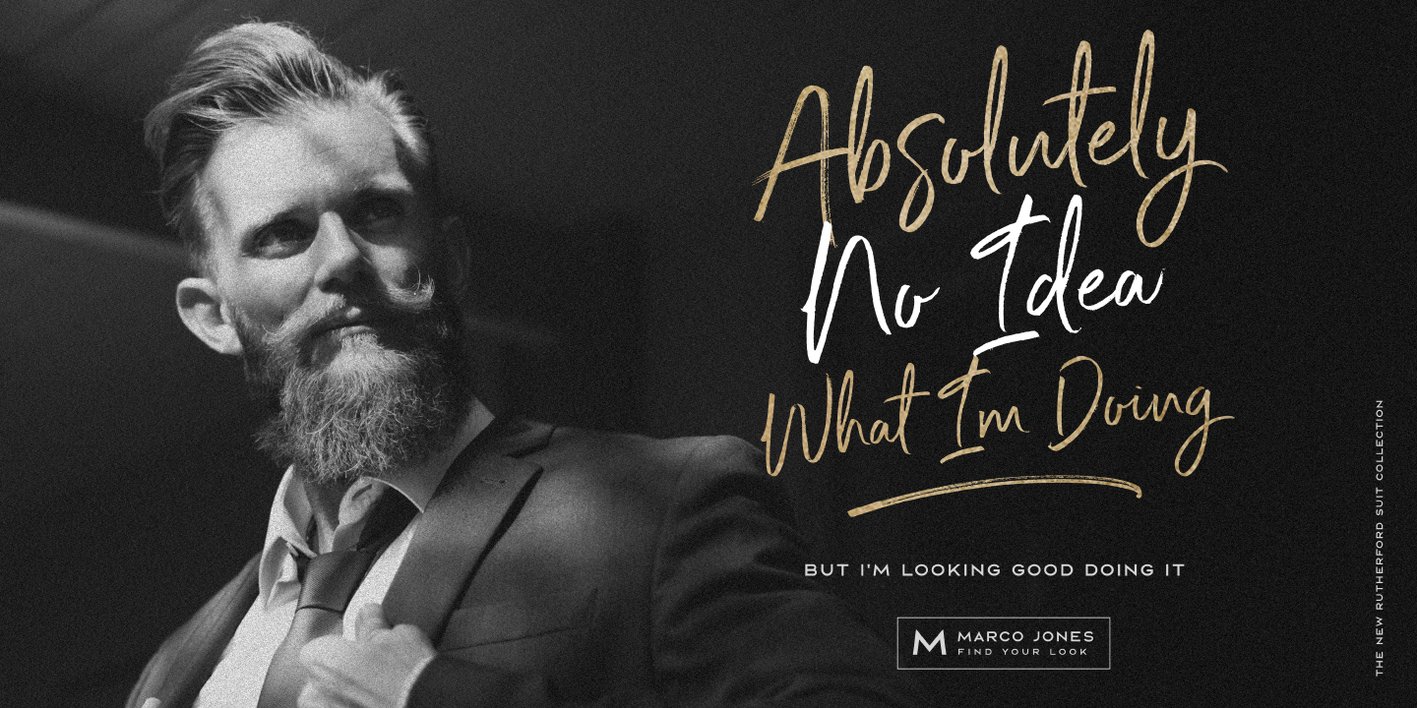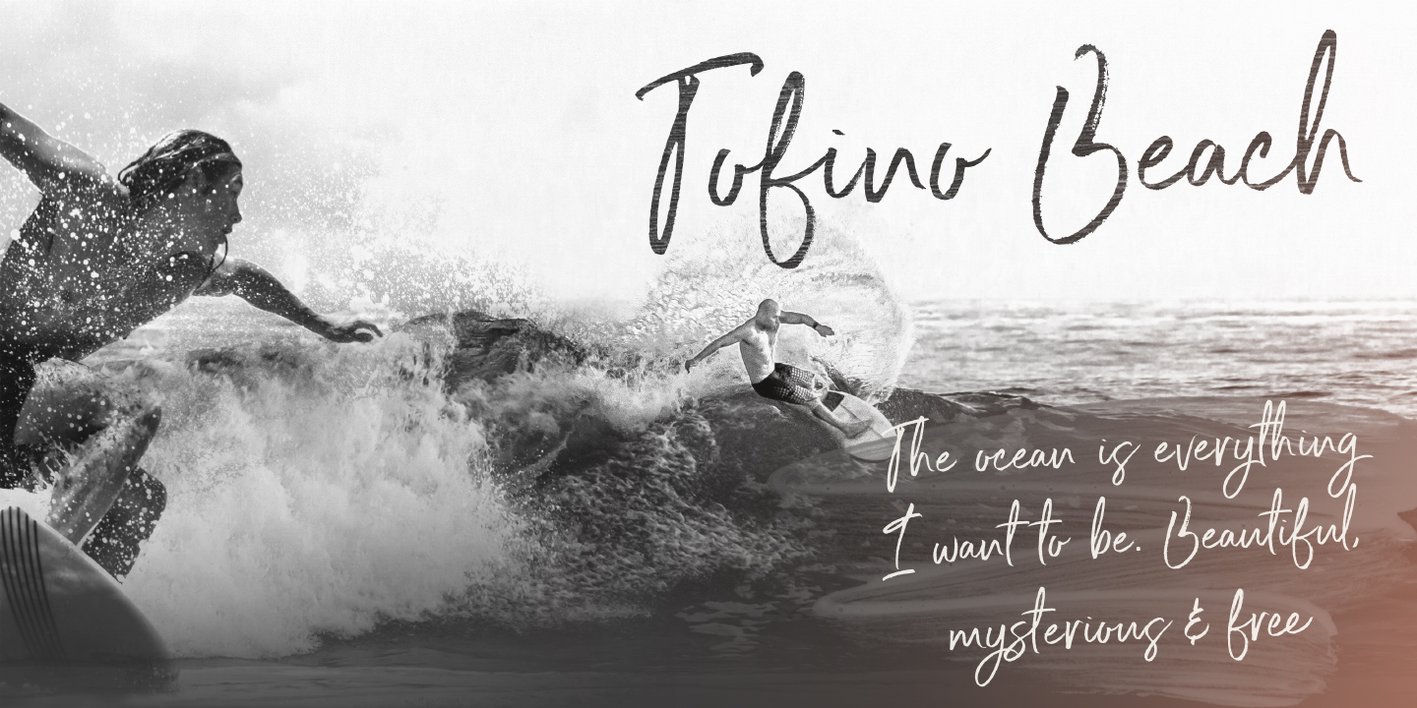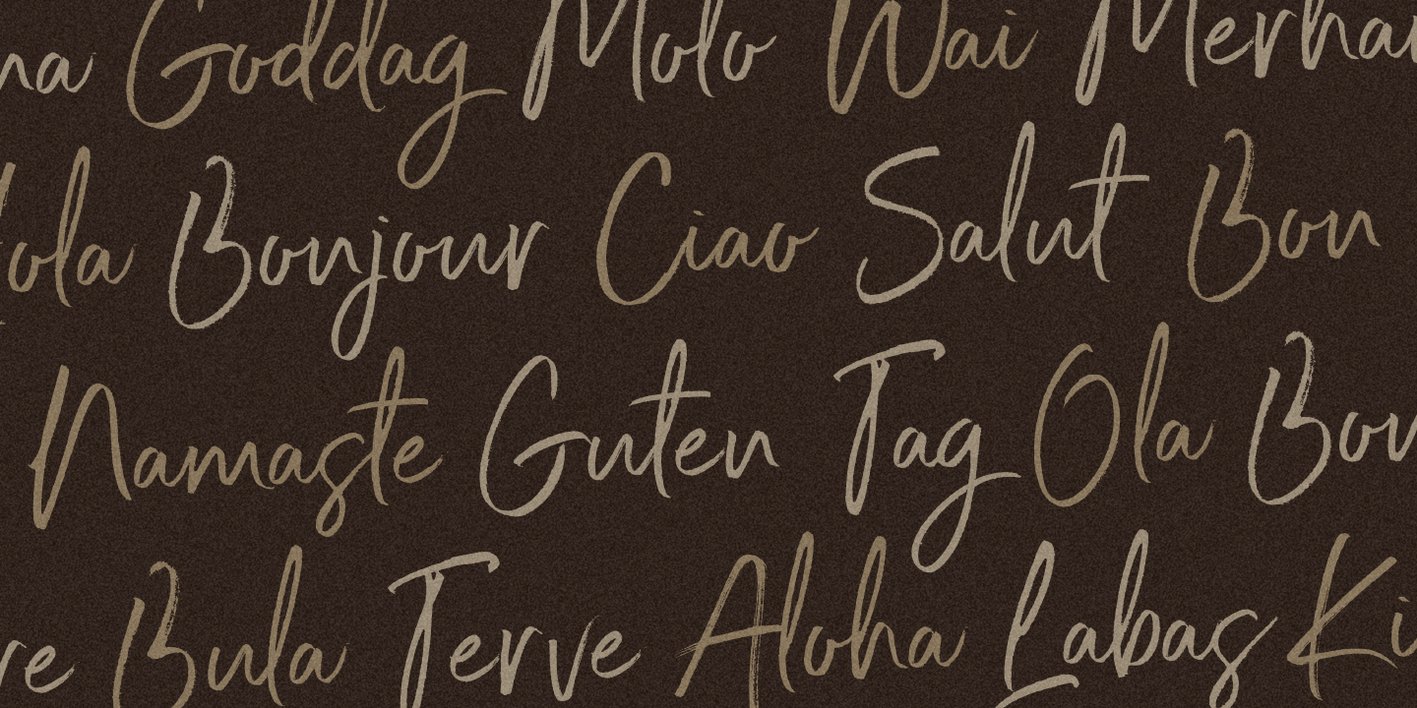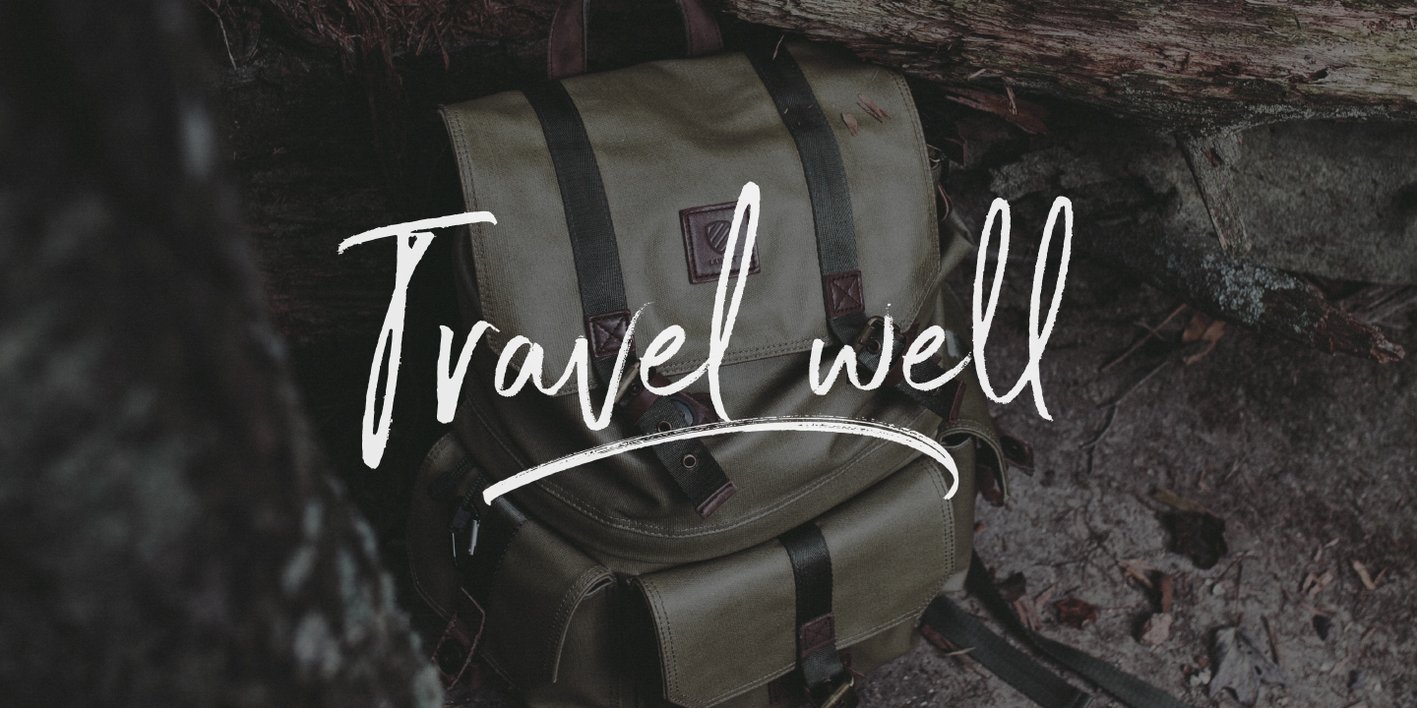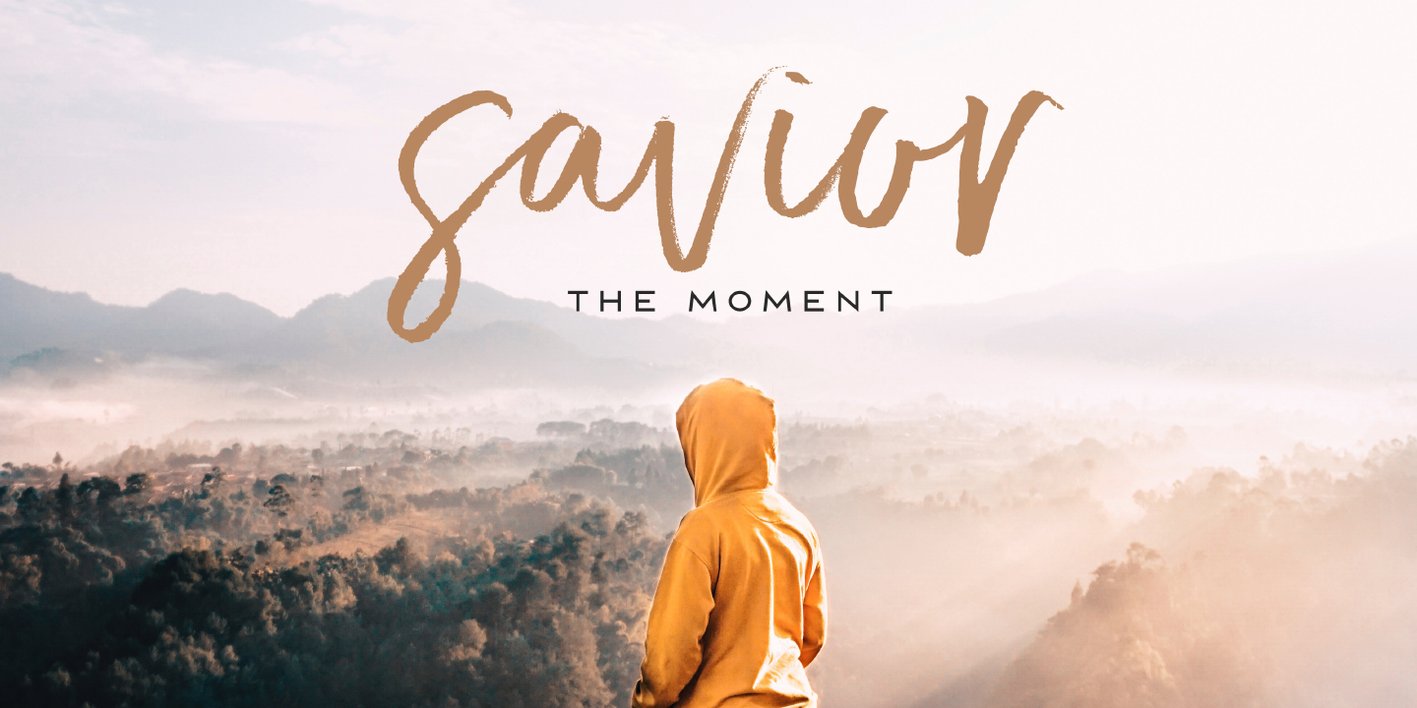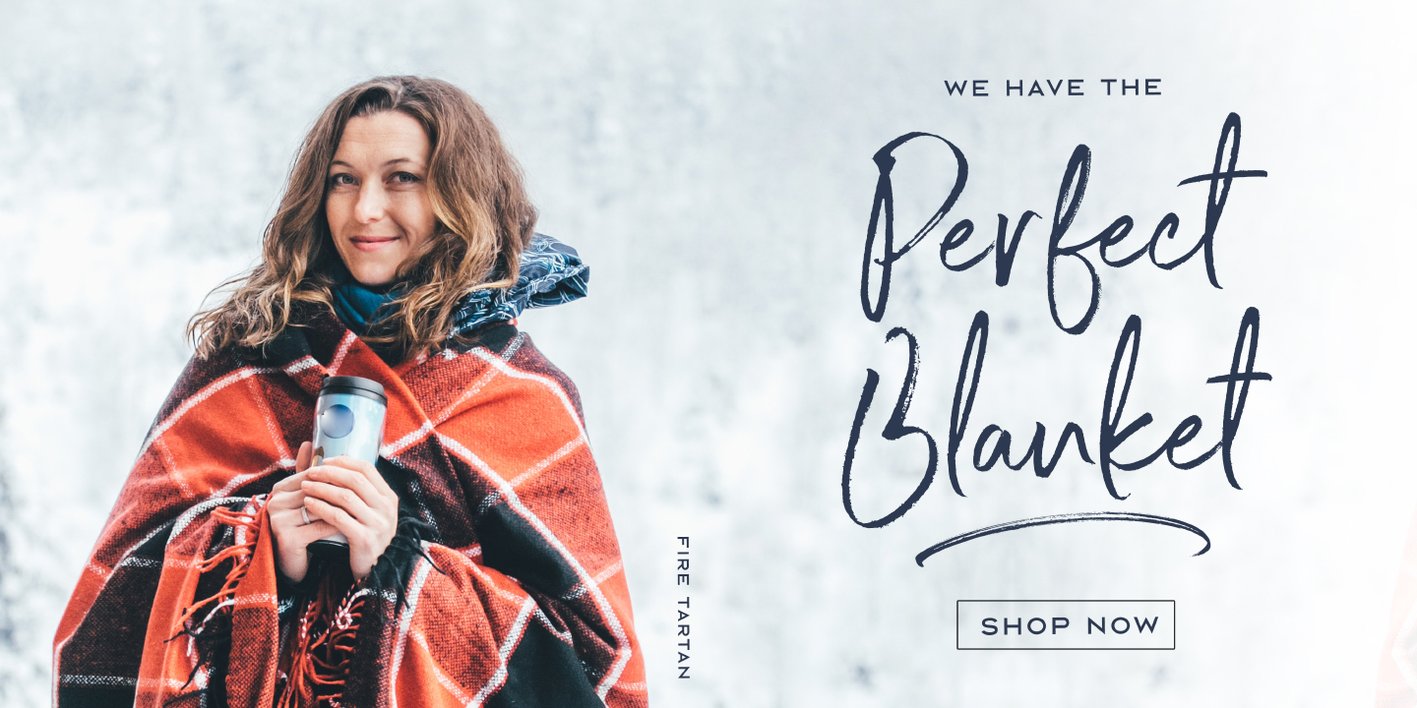
Point Blair Font
Point Blair is a script typeface that mimics natural handwriting and signature styles. Inspired by the scribblings found in travel journals from early explorers, this script font focuses on a free flow feel, with real brush pen texture and variance built into each character. To keep things looking natural, every character a-z and A-Z has an alternate available so that you can add variance to your text.